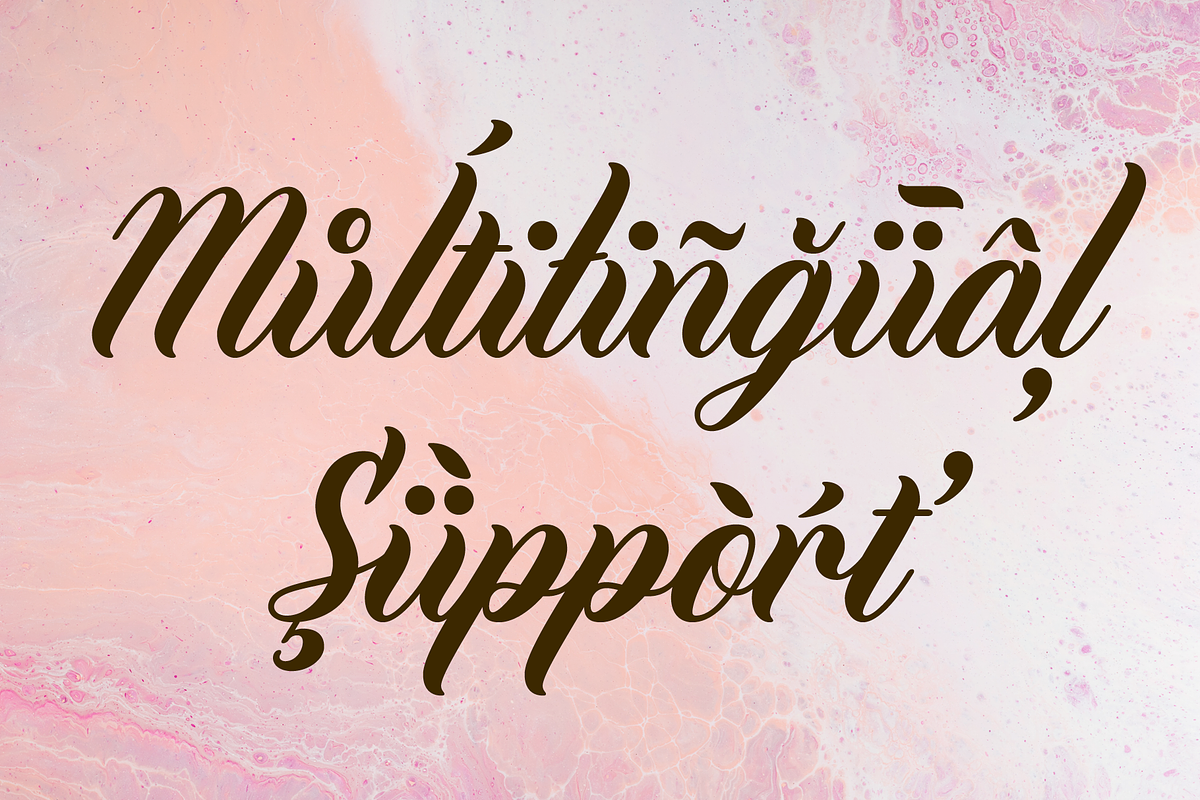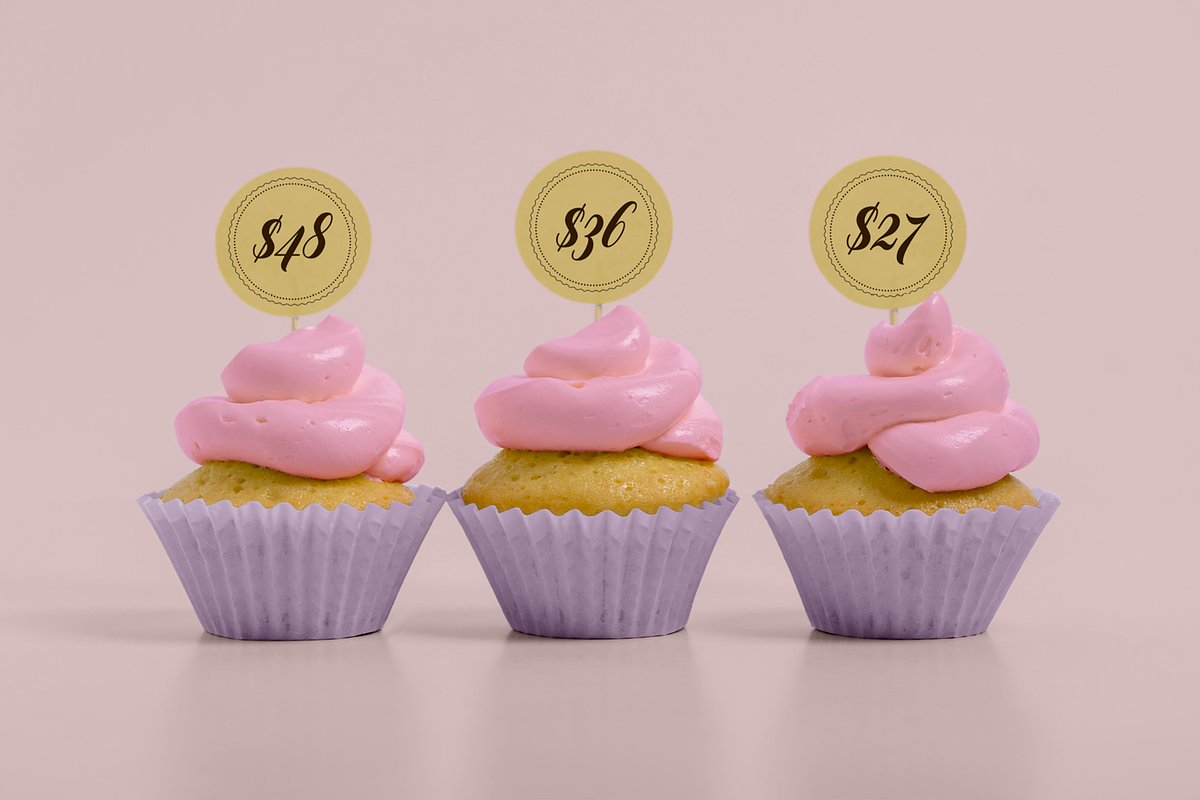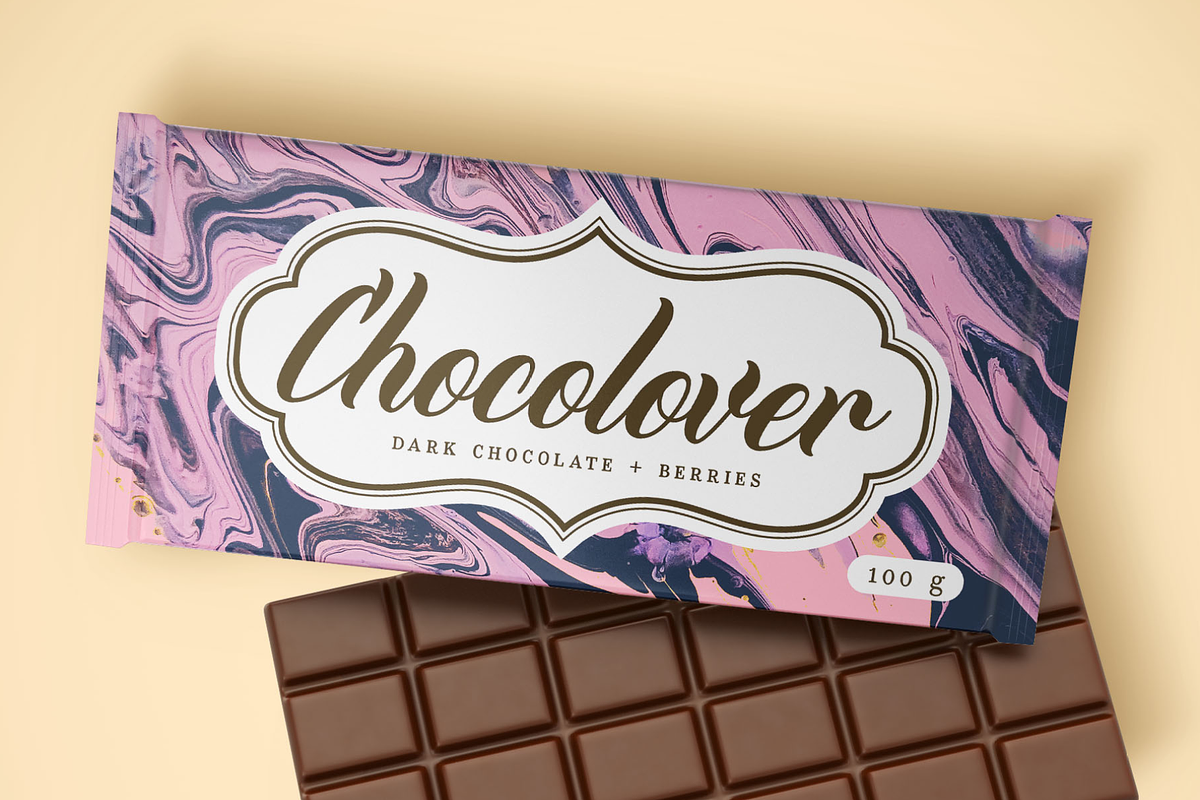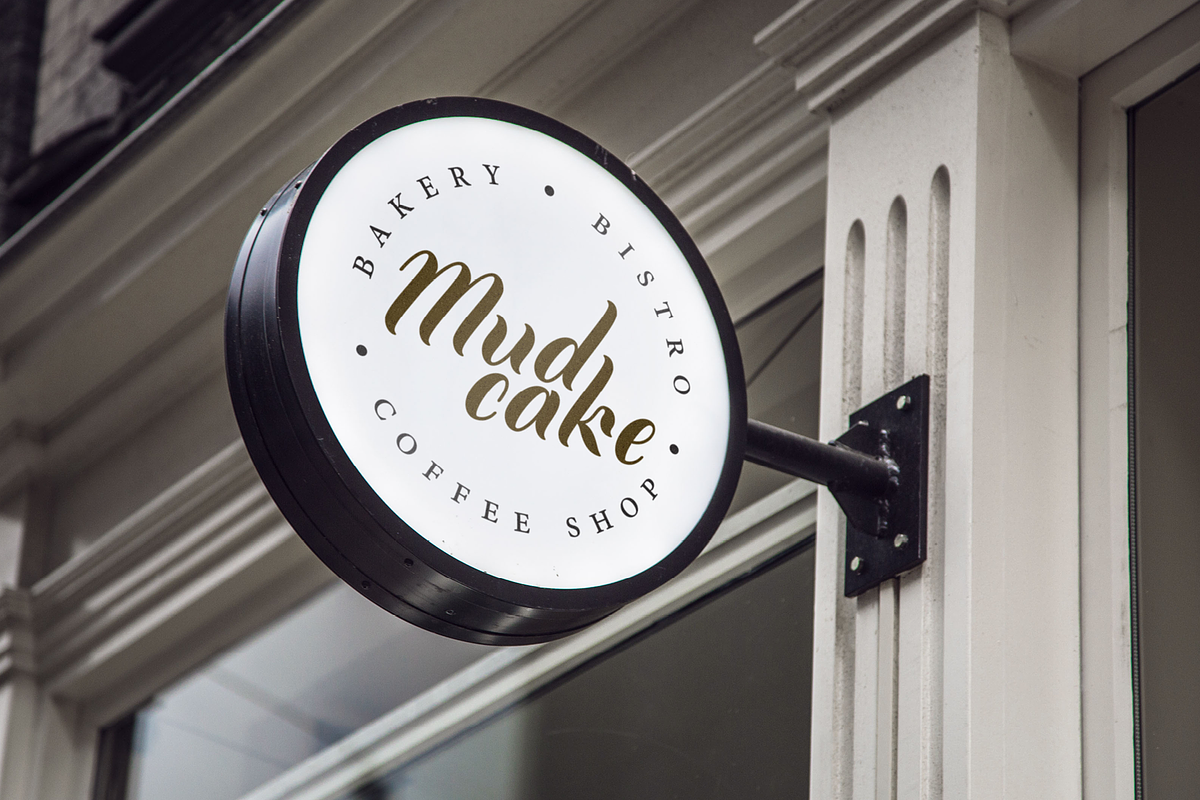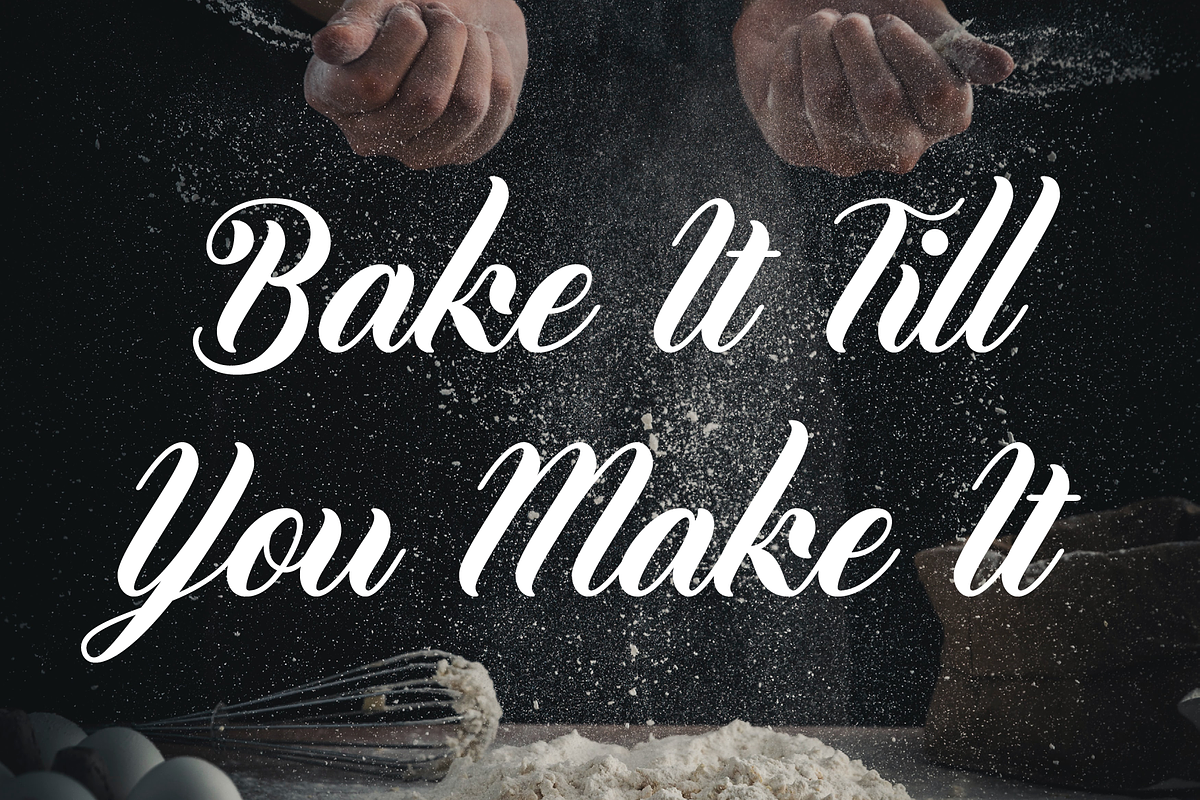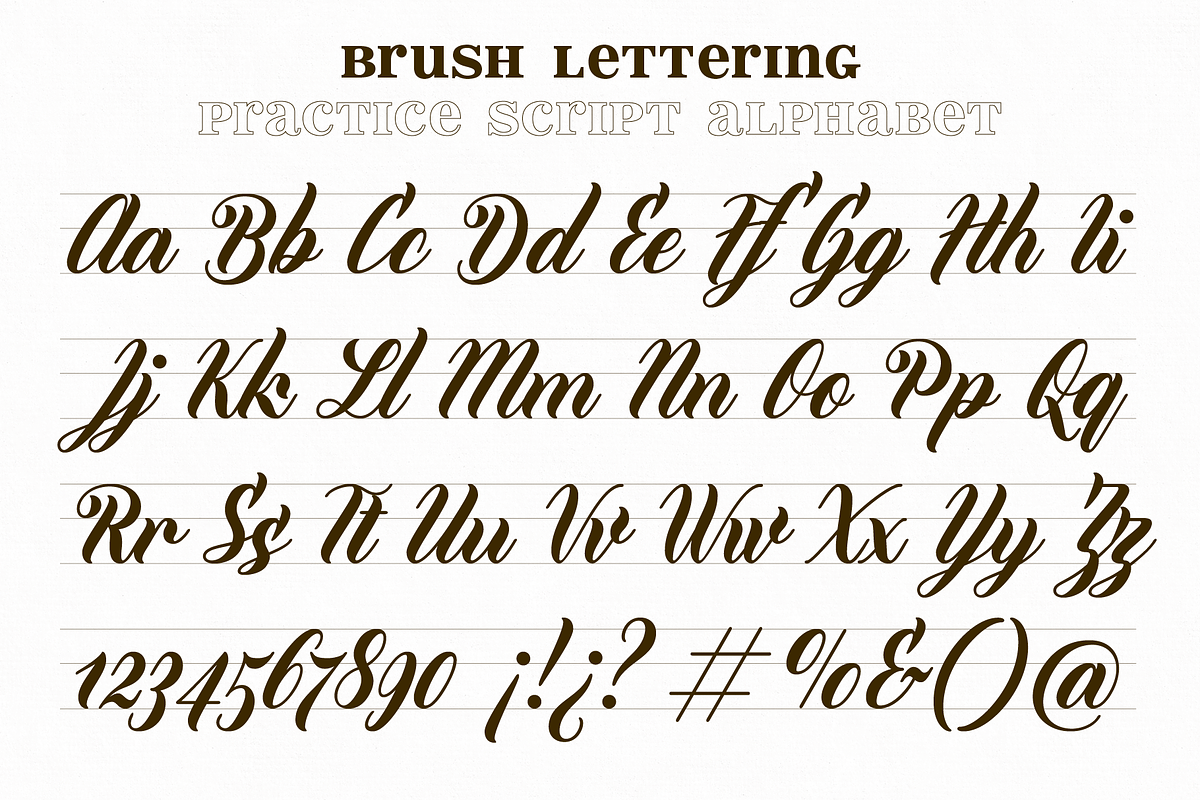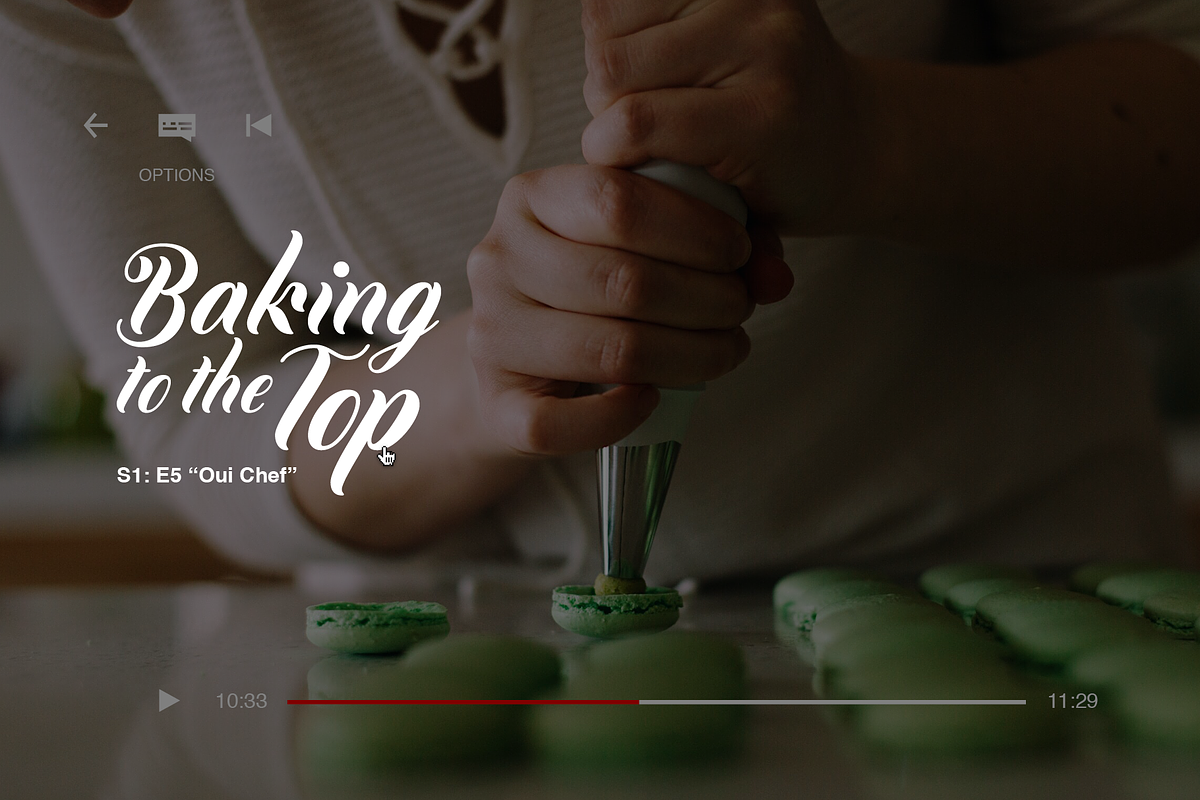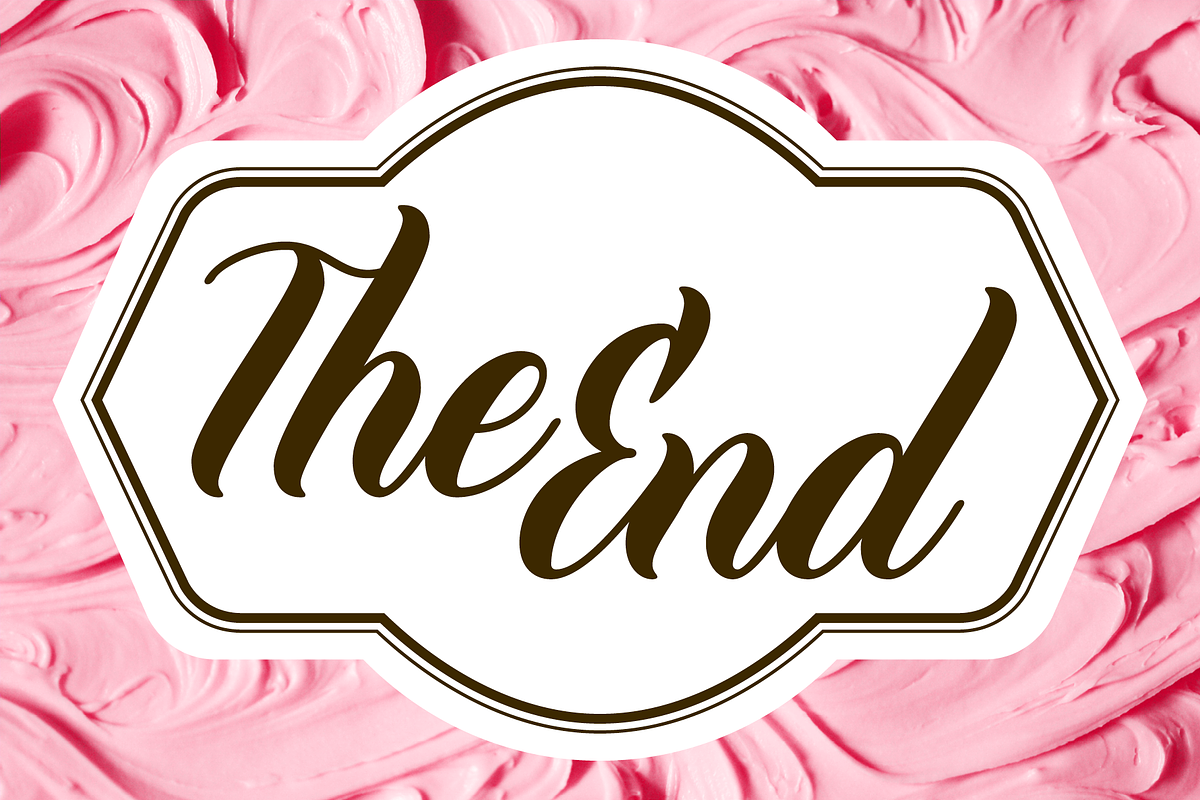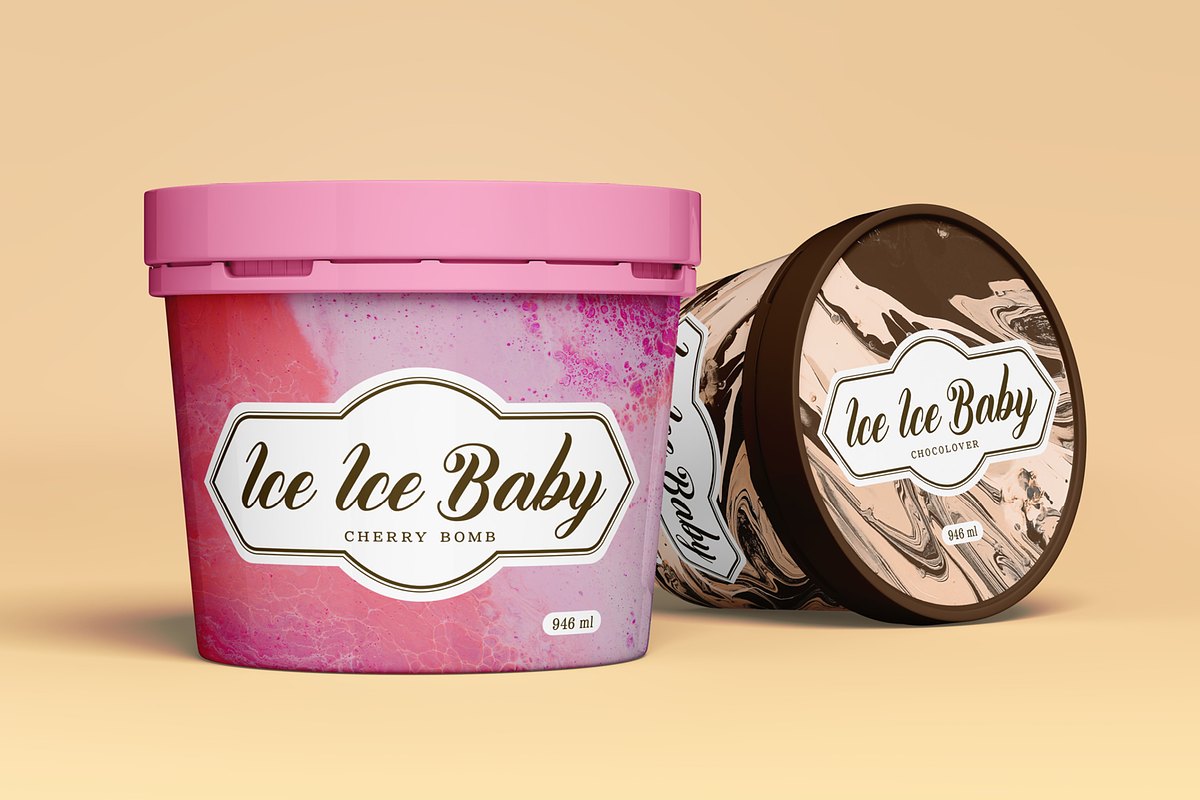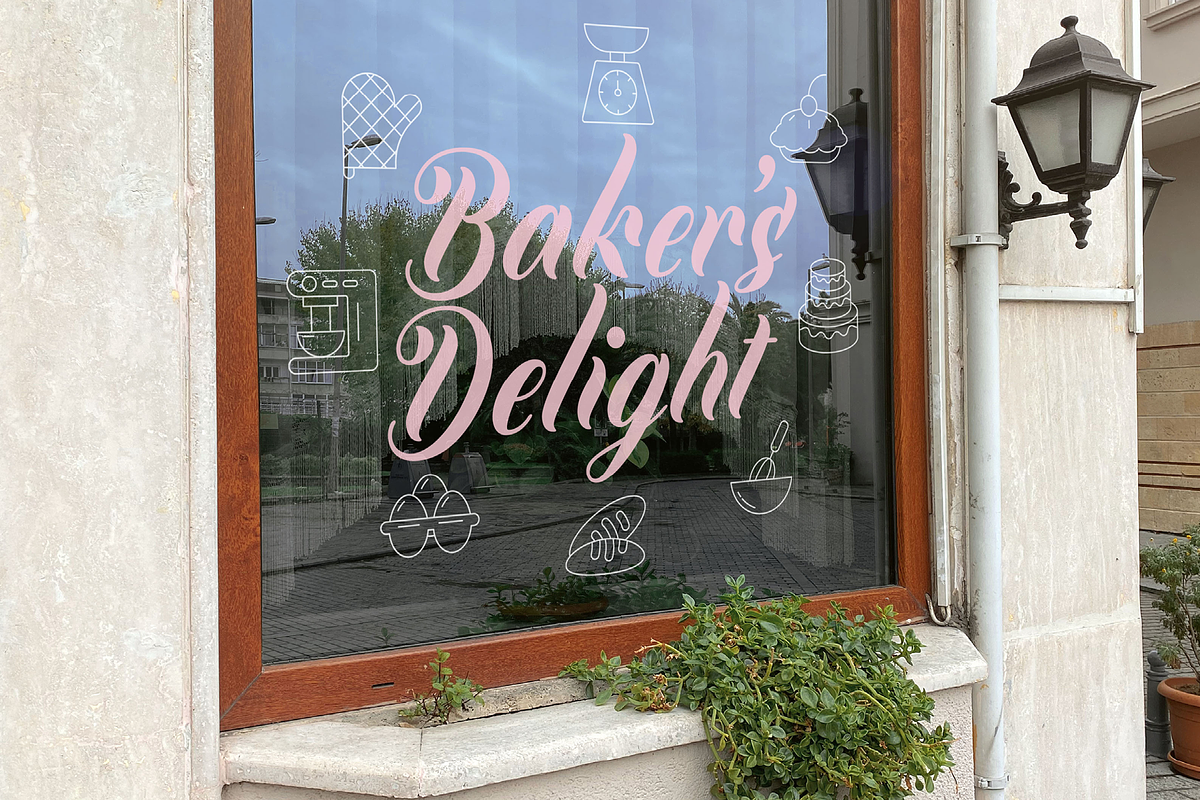
Sweetener
Add a sugary flavour to your designs with Sweetener; a sugary handwritten font inspired in modern brush lettering. Alternate between a script style and a non-connected style that keeps the same anatomy.
Perfect for branding, titling, packaging, stationery, bullet journal, cards, magazine layouts and any project related with food, specially desserts and candies.
Sweetener is PUA encoded, it has multilingual support for Latin and includes basic Cyrillic alphabet.